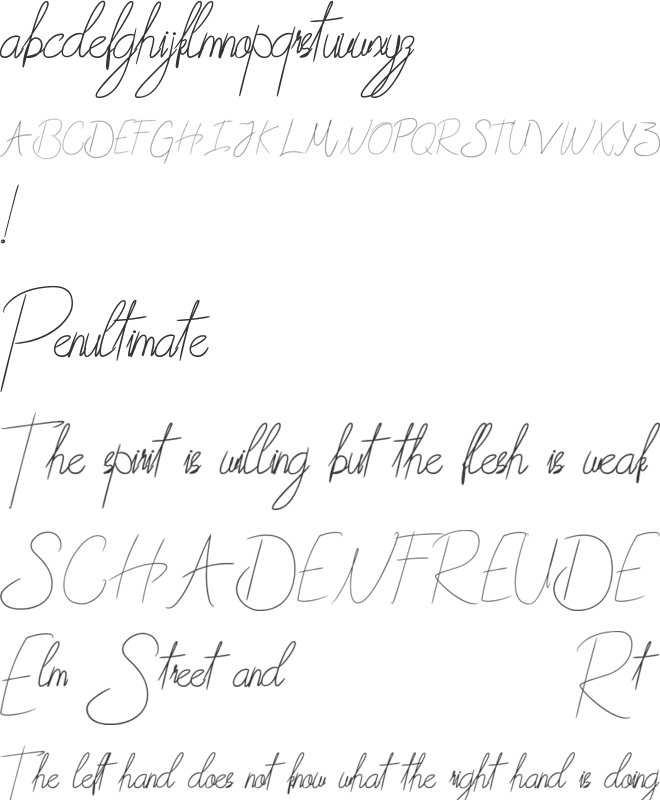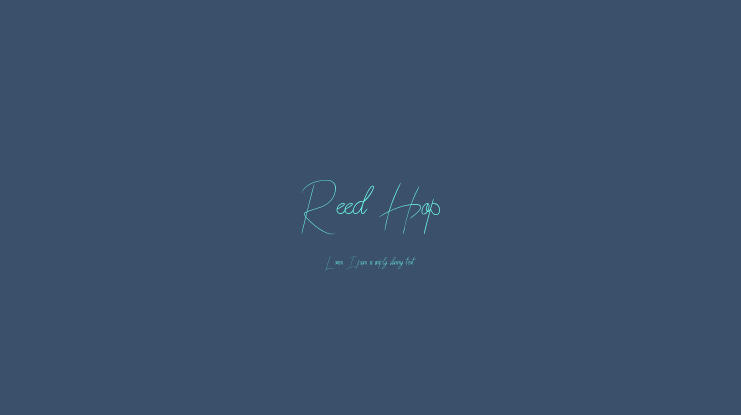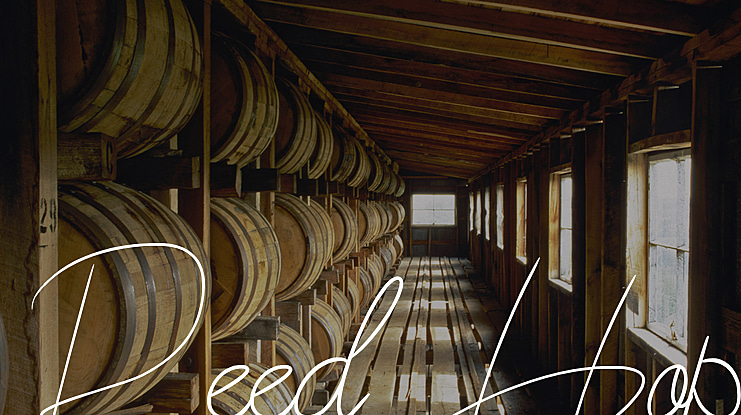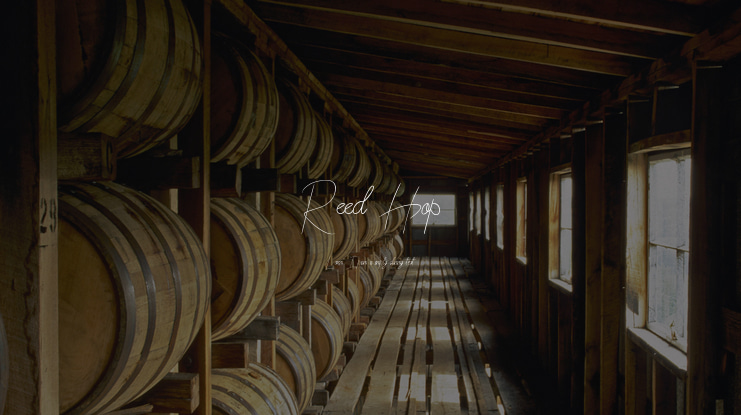
Reed Hop Font
Reed Hop is a new, fresh handwritten script font. It’s script style make this font look natural, classy and perfect for any awesome projects that need handwriting taste.